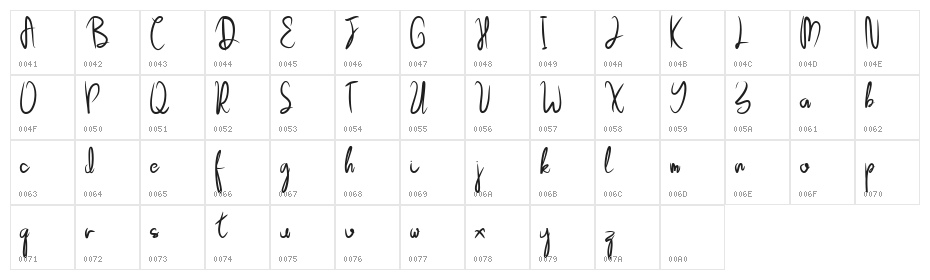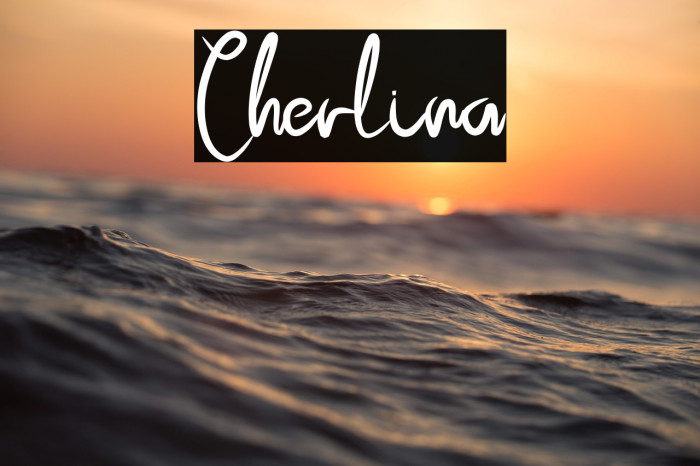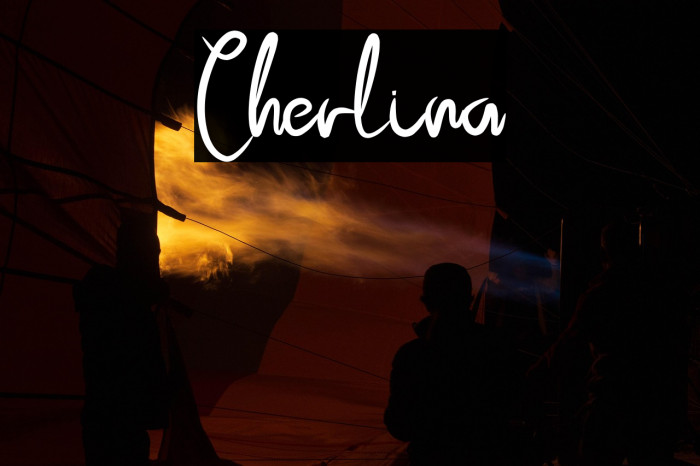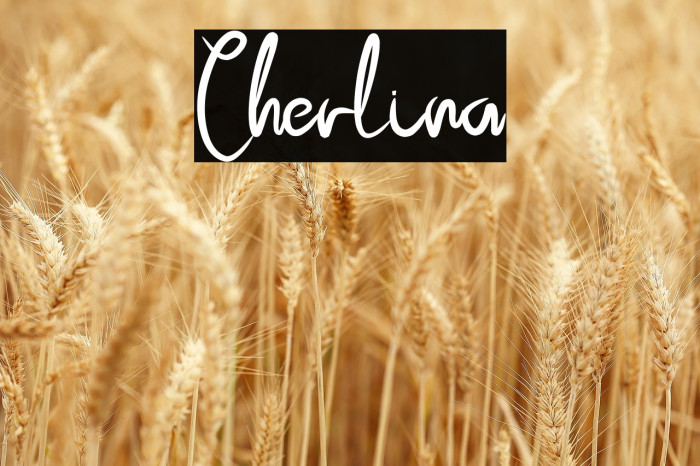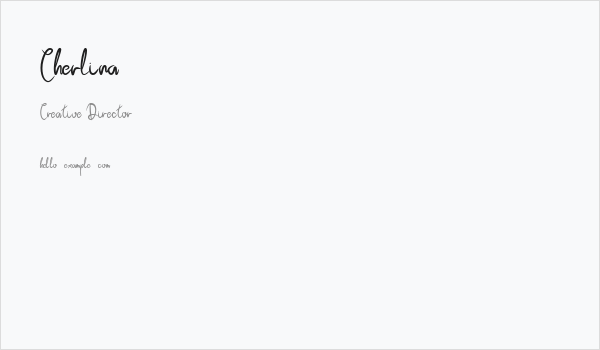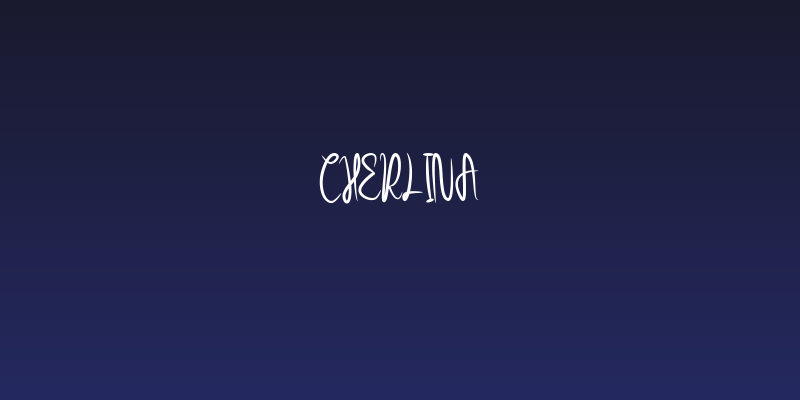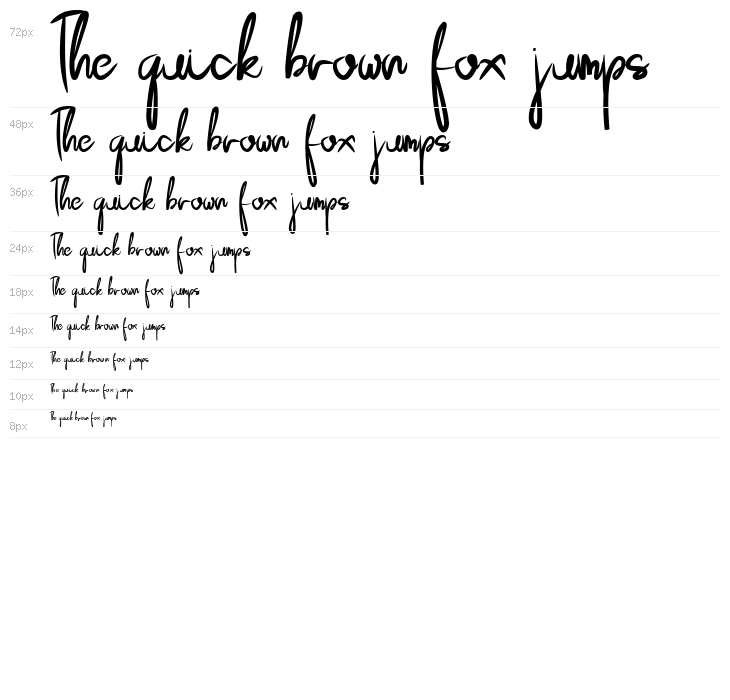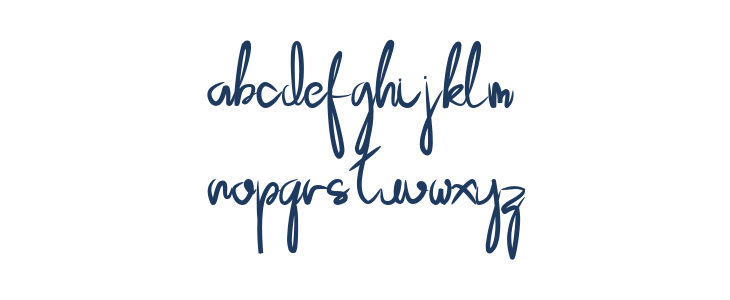
Cherlina Font
Cherlina Description
This font features a dynamic and fluid script style, characterized by its elegant and flowing letterforms. The strokes are smooth and connected, giving it a handwritten appearance that is both stylish and approachable. The uppercase letters are bold and prominent, while the lowercase letters maintain a consistent flow, enhancing readability. The font's playful curves and loops add a touch of whimsy, making it suitable for creative and artistic projects. Its unique style is perfect for adding a personal touch to any design.